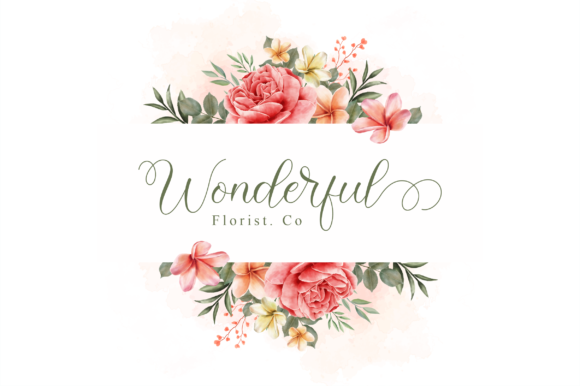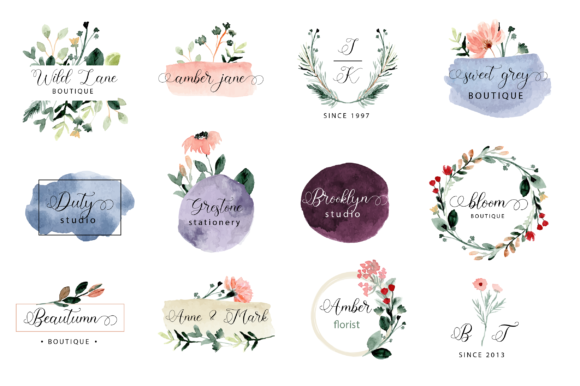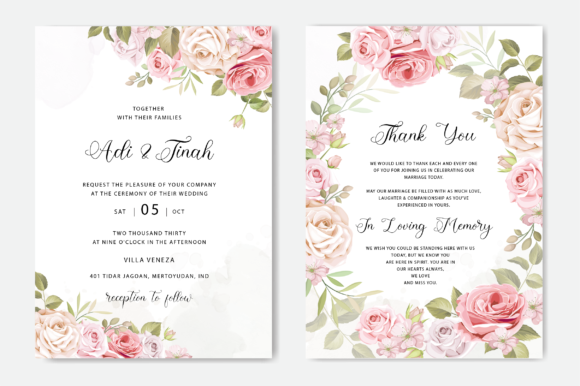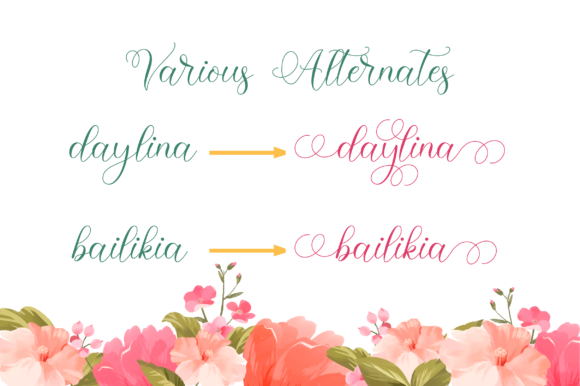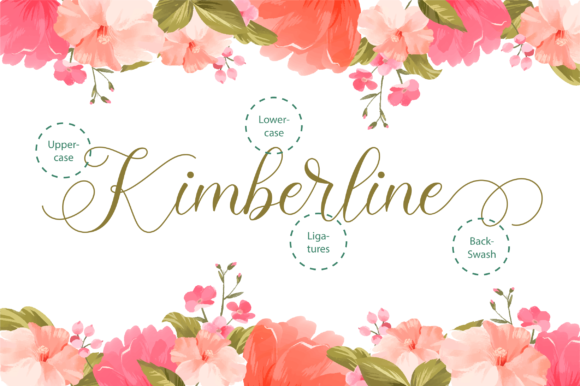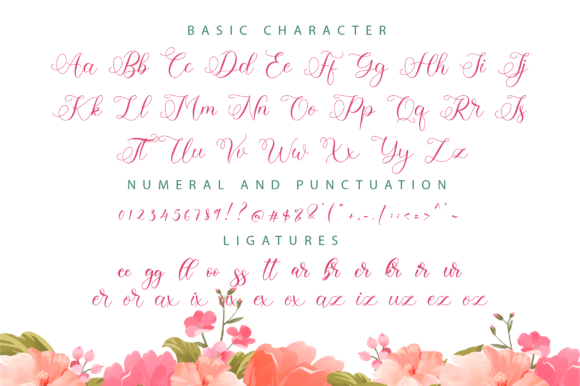
Introduction to Kimberline Font
Kimberline is a beautiful and elegant script font.
Fall in love with its authentic feel and use it to create gorgeous wedding invitations, beautiful stationary art, eye-catching social media posts, and cute greeting cards This font is PUA encoded which means you can access all of the cute glyphs and swashes with ease.
Key Features of Kimberline Font